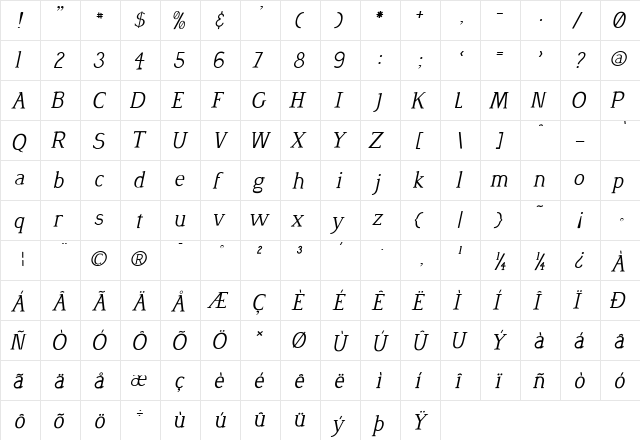
Desmond Medium Italic Font Preview
Desmond Medium Italic
Desmond Medium Italic Font Details
Design Context for Desmond Typeface
Desmond offers clean, dependable letterforms without strong stylistic allegiance, making it a practical choice for designers who need flexibility. The dynamic lean of this cut emphasises speed and emphasis in any layout.
Pro Tip: Use Desmond for emphasis, pull quotes, and subheadings where its slanted energy can add rhythm to the layout.